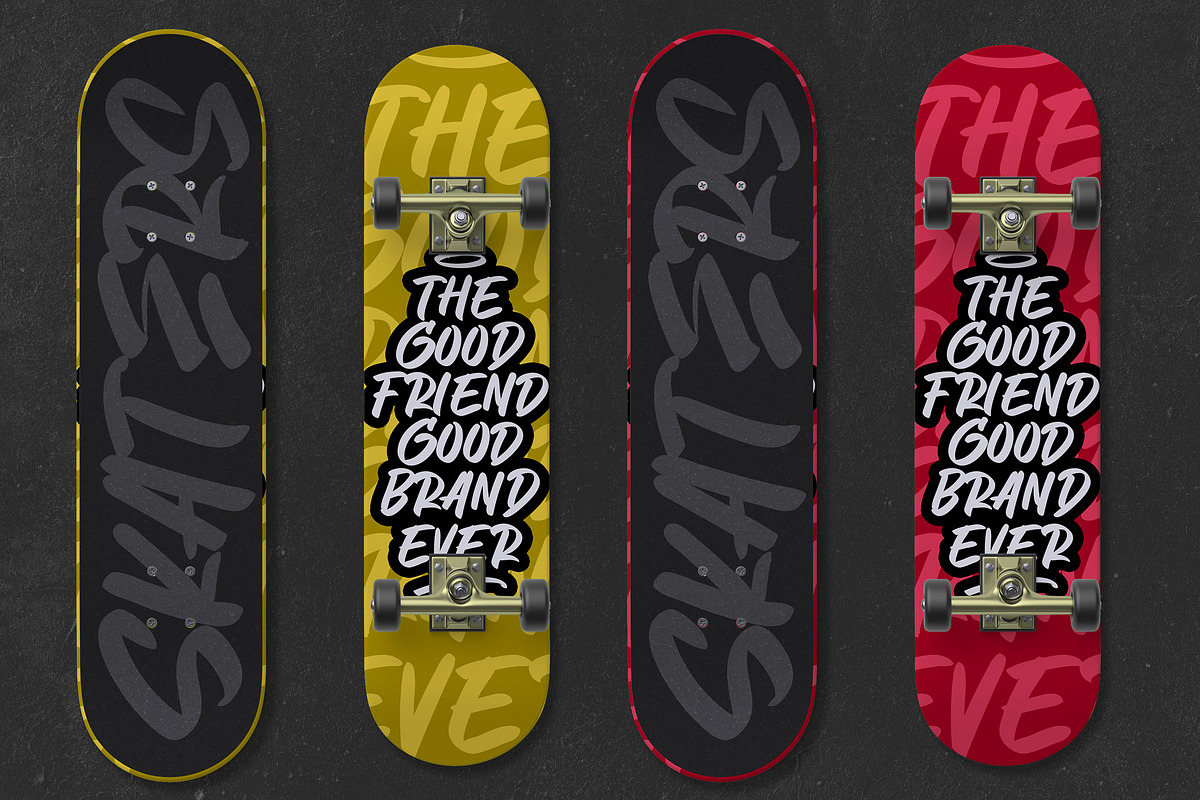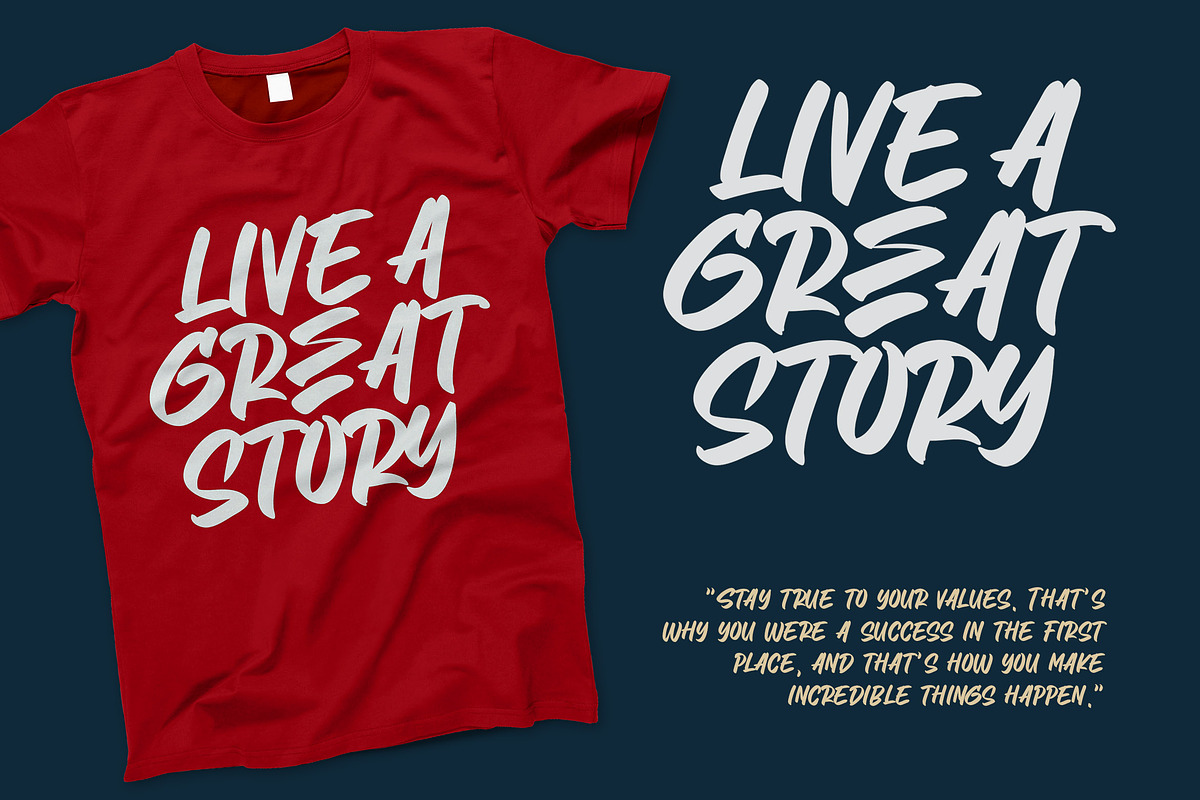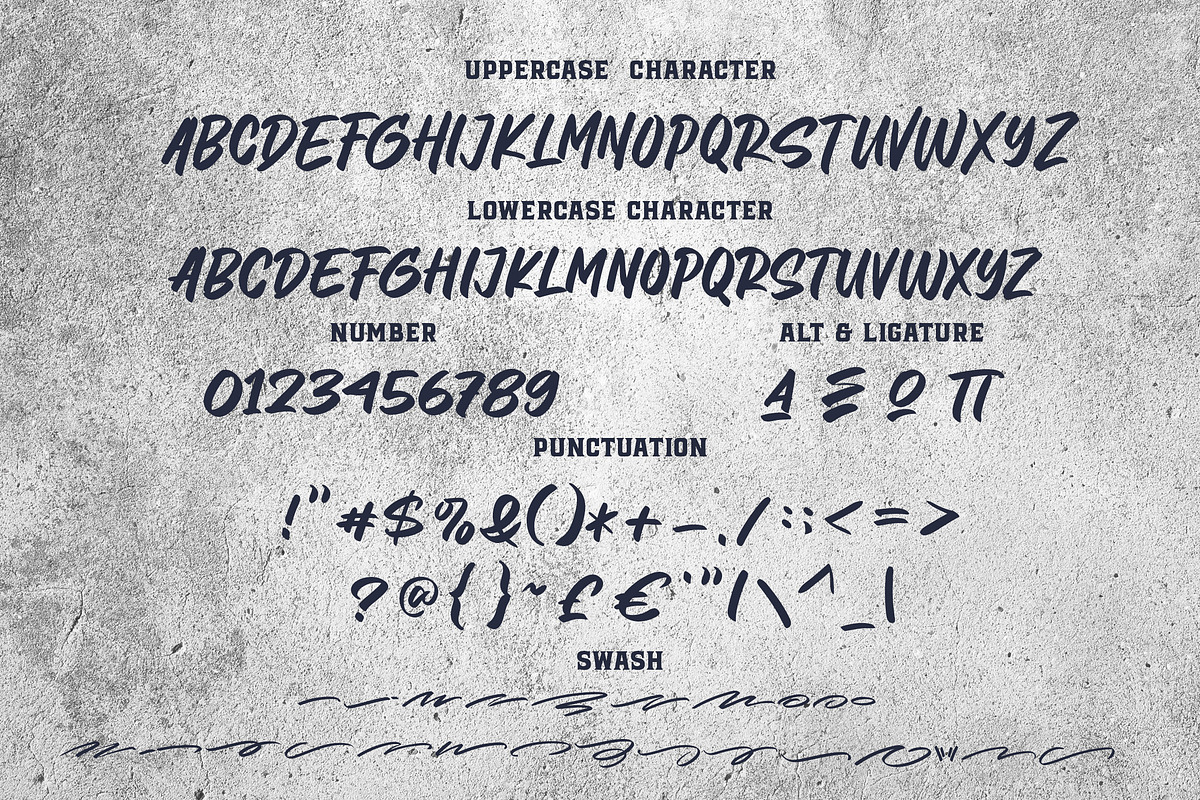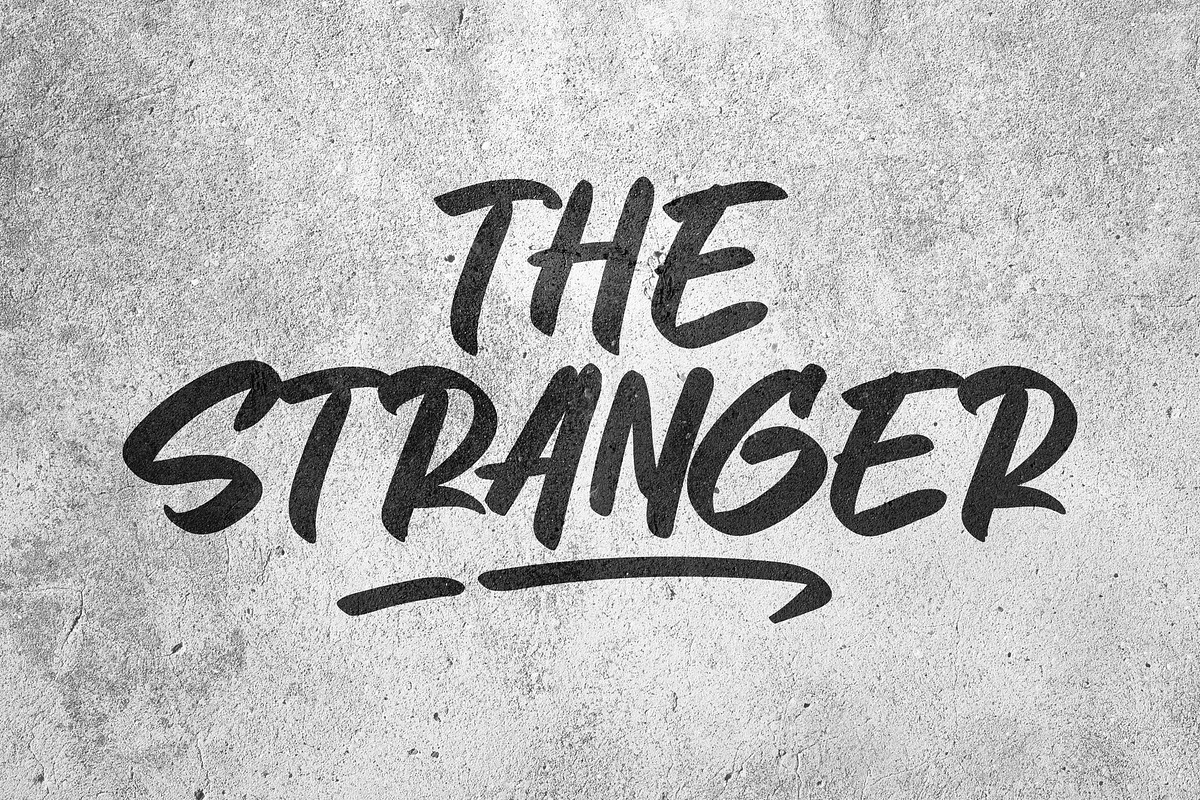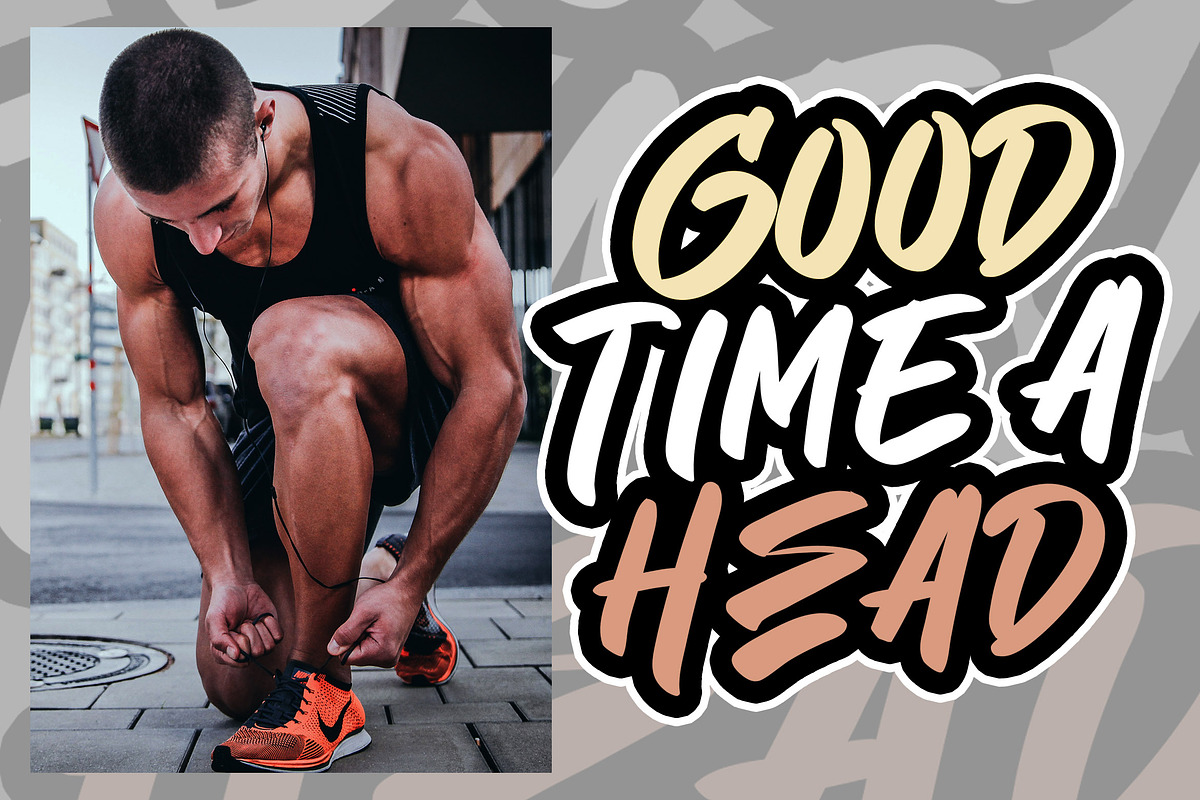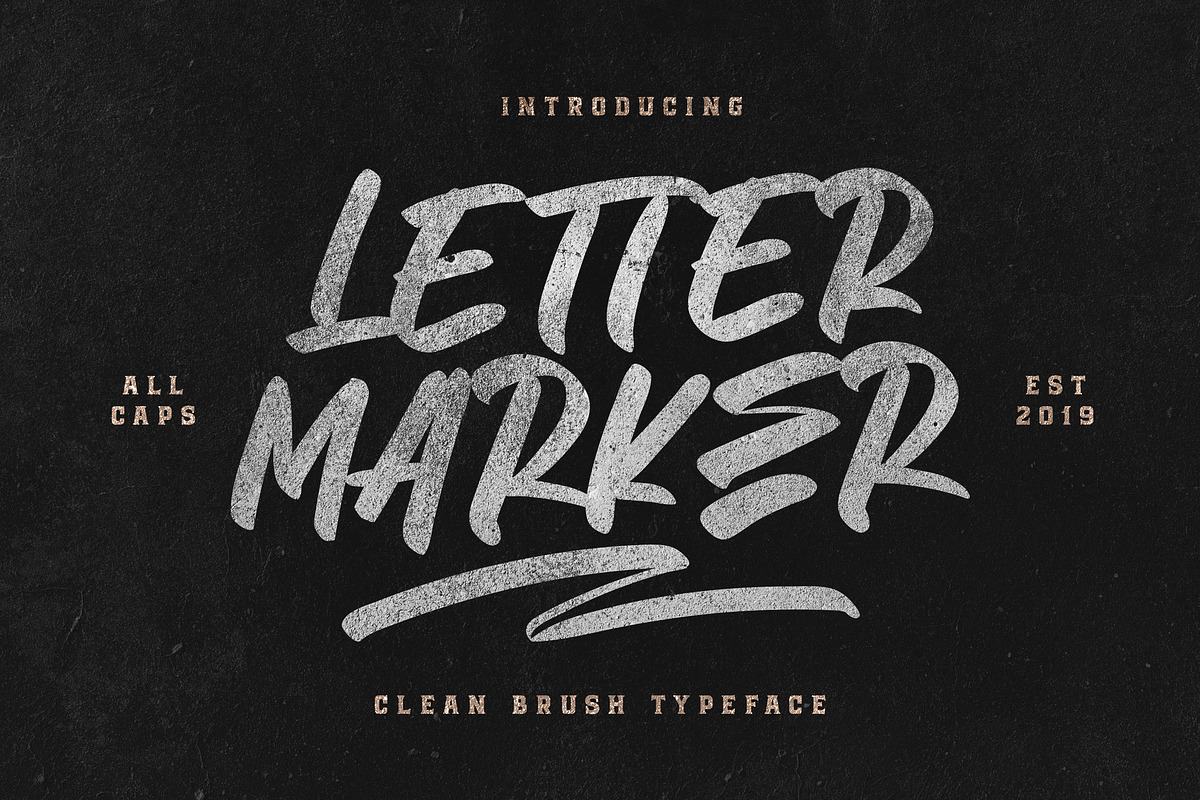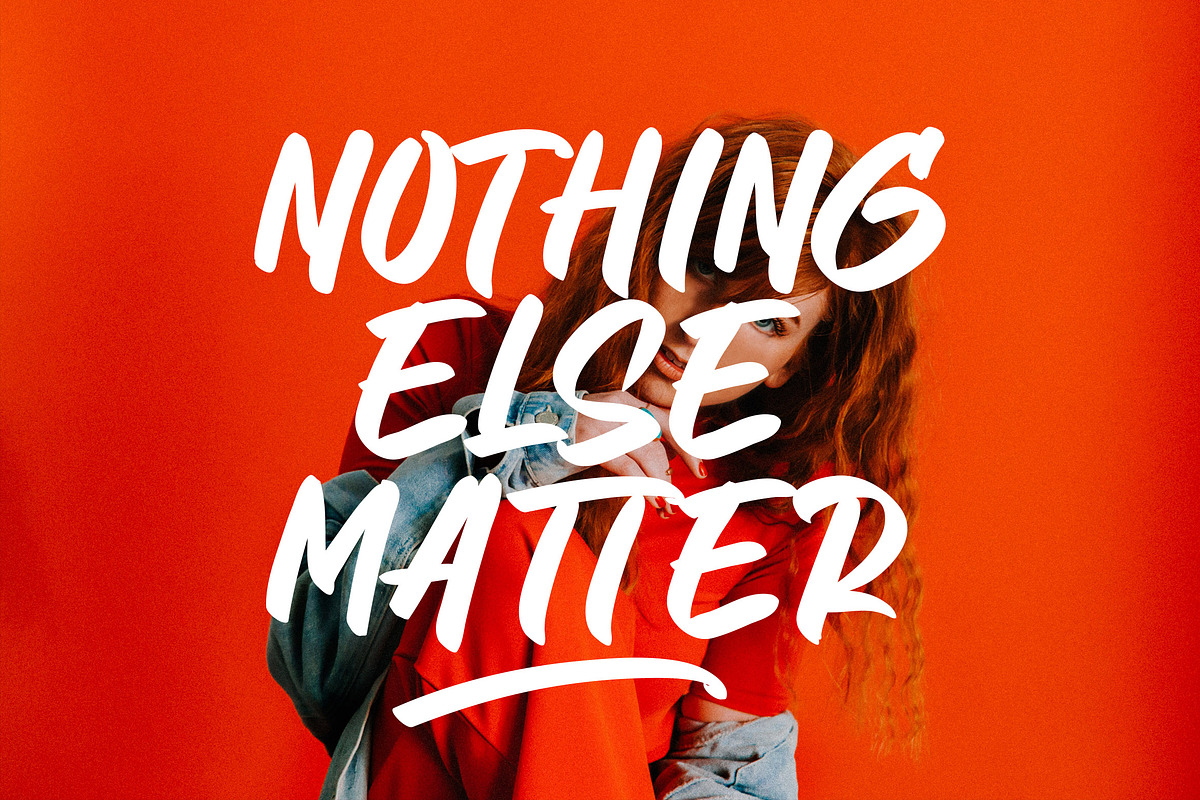
Letter Marker
Letter Marker Clean Brush Typeface
Introducing of our new product the name is Letter Marker Clean Brush Typeface. I made this with my original handwriting using stabilo marker then making it digital. Letter Marker is good for logotype, wedding invitation design, badge, headline, signature, packaging and any more.